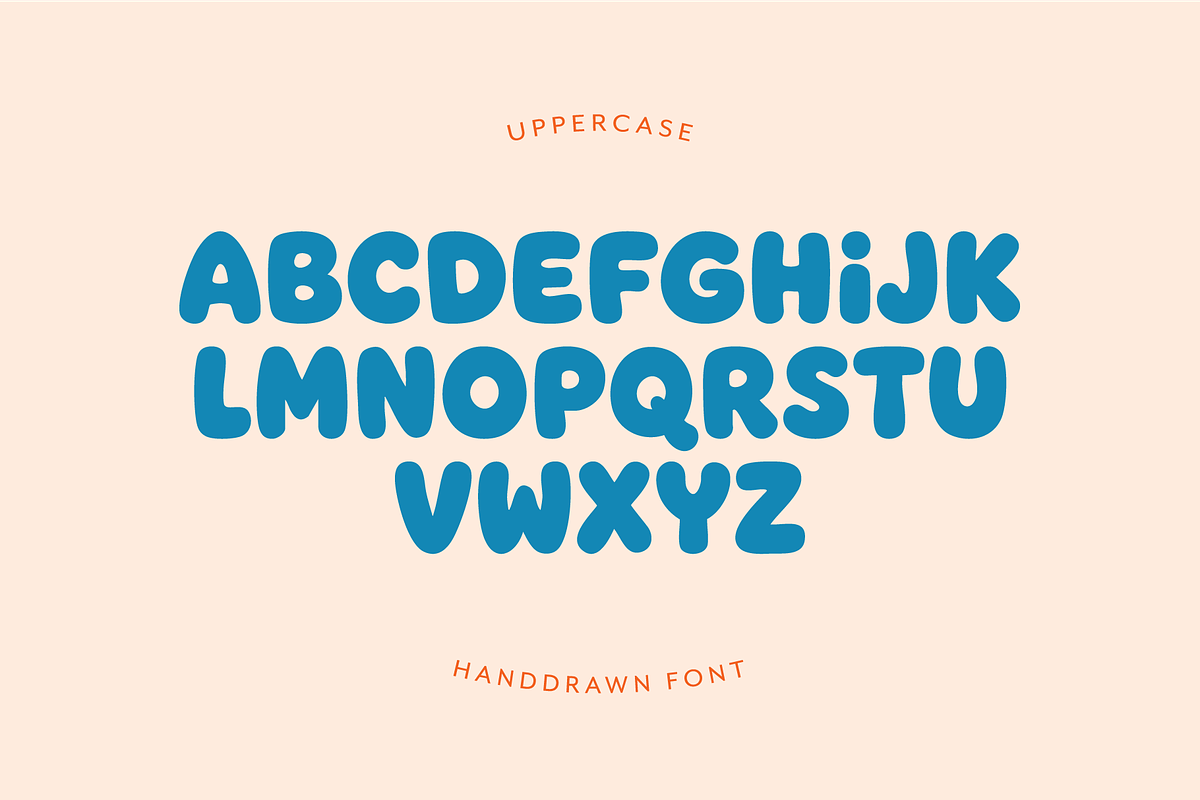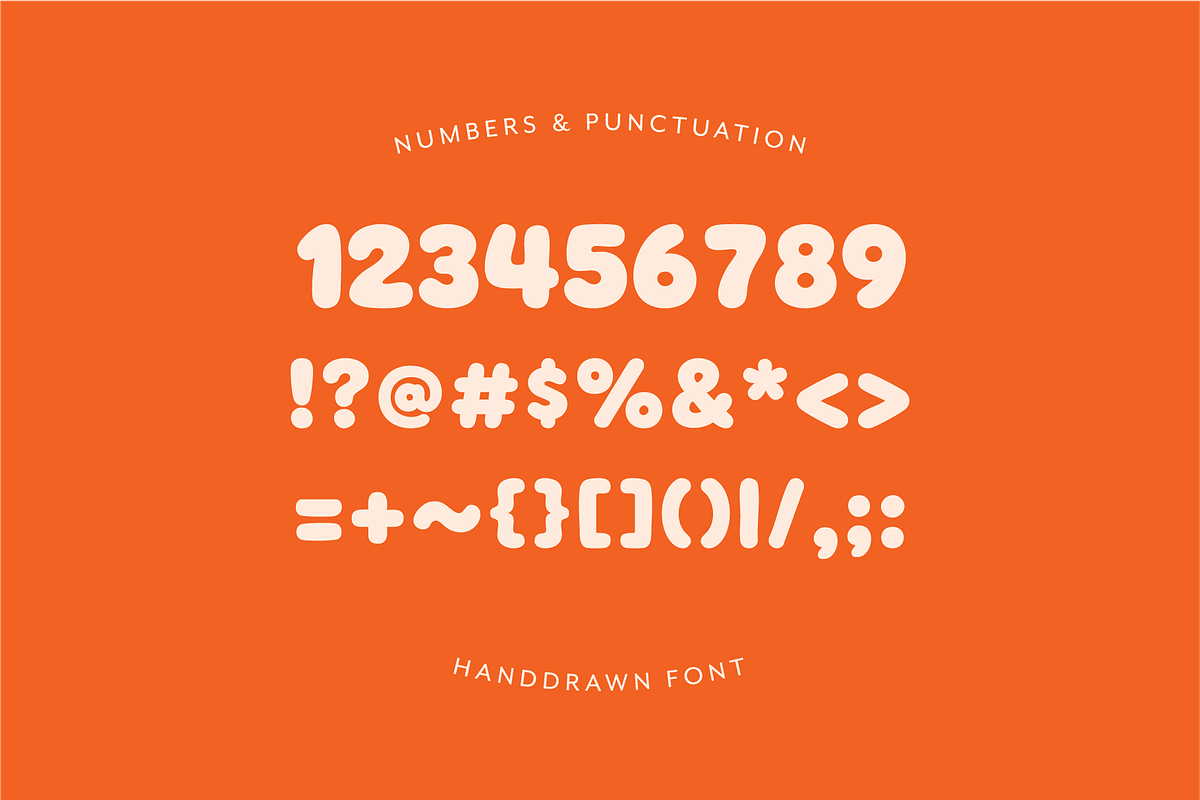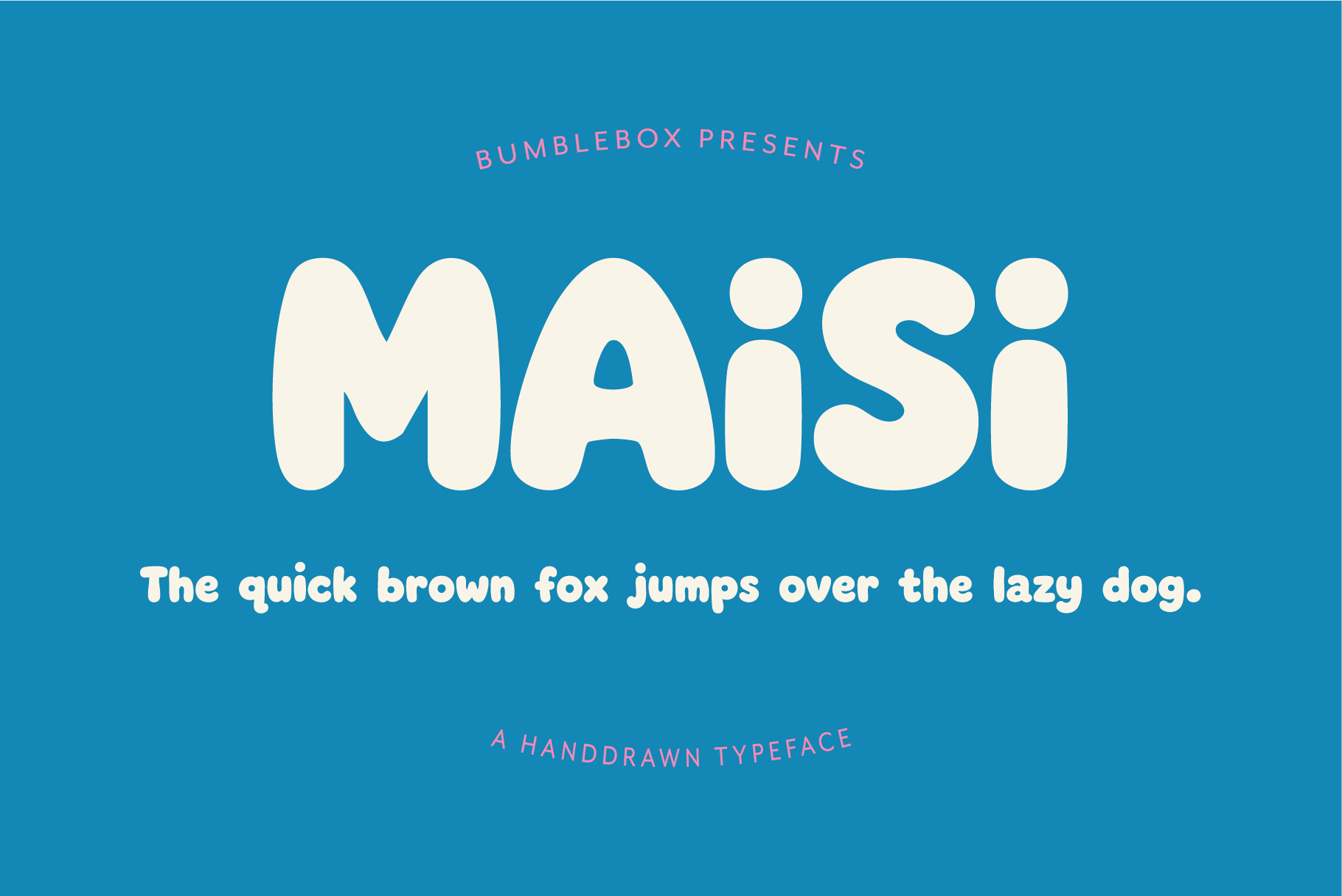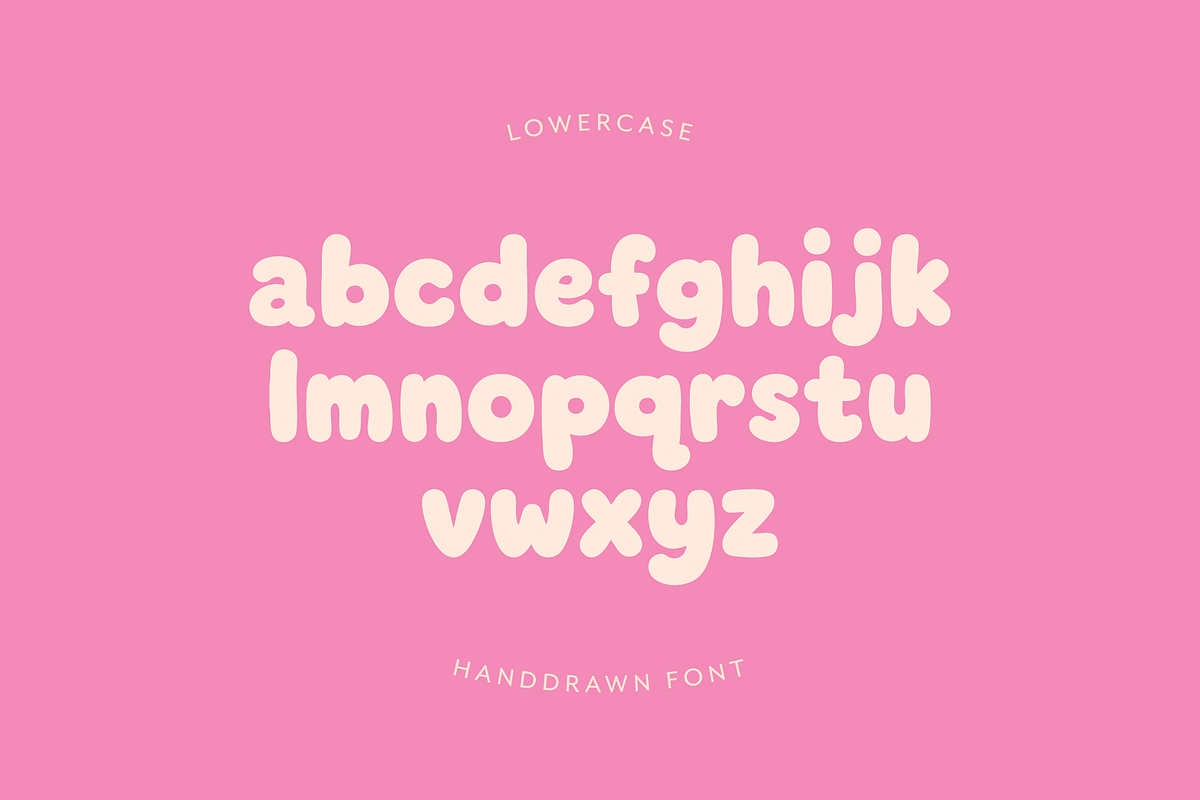
Maisi - A Handwritten Font
Maisi is a quirky, happy hand-drawn display font that blends playful personality with a clean, sophisticated simplicity. Its soft curves, chunky shapes, and slightly imperfect rhythm create a warm, approachable feel while still remaining polished and versatile.
Designed to feel expressive without being overwhelming, Maisi strikes a balance between cheerful and refined, making it perfect for projects that want personality without losing readability. The letterforms feel handmade and full of charm, yet intentionally crafted to work beautifully across both digital and print design.
Whether you’re creating branding, packaging, social graphics, YouTube thumbnails, stickers, greeting cards, KDP covers, or playful editorial layouts, Maisi adds a modern handcrafted touch that feels both fun and thoughtfully designed.
Its rounded forms and balanced spacing allow it to stand out at large display sizes while still remaining clear and friendly in smaller text applications.
Branding & logos
Packaging design
Stickers & merchandise
Canva templates
YouTube thumbnails
KDP covers
Greeting cards
Posters & printables
Children’s products
Craft & handmade brands
Headlines & quote graphics
Uppercase & lowercase
Alternate capital “I”
Hand-drawn display style
Maisi was created to feel joyful, distinctive, and effortlessly usable, a font with character, warmth, and just the right amount of sophistication.